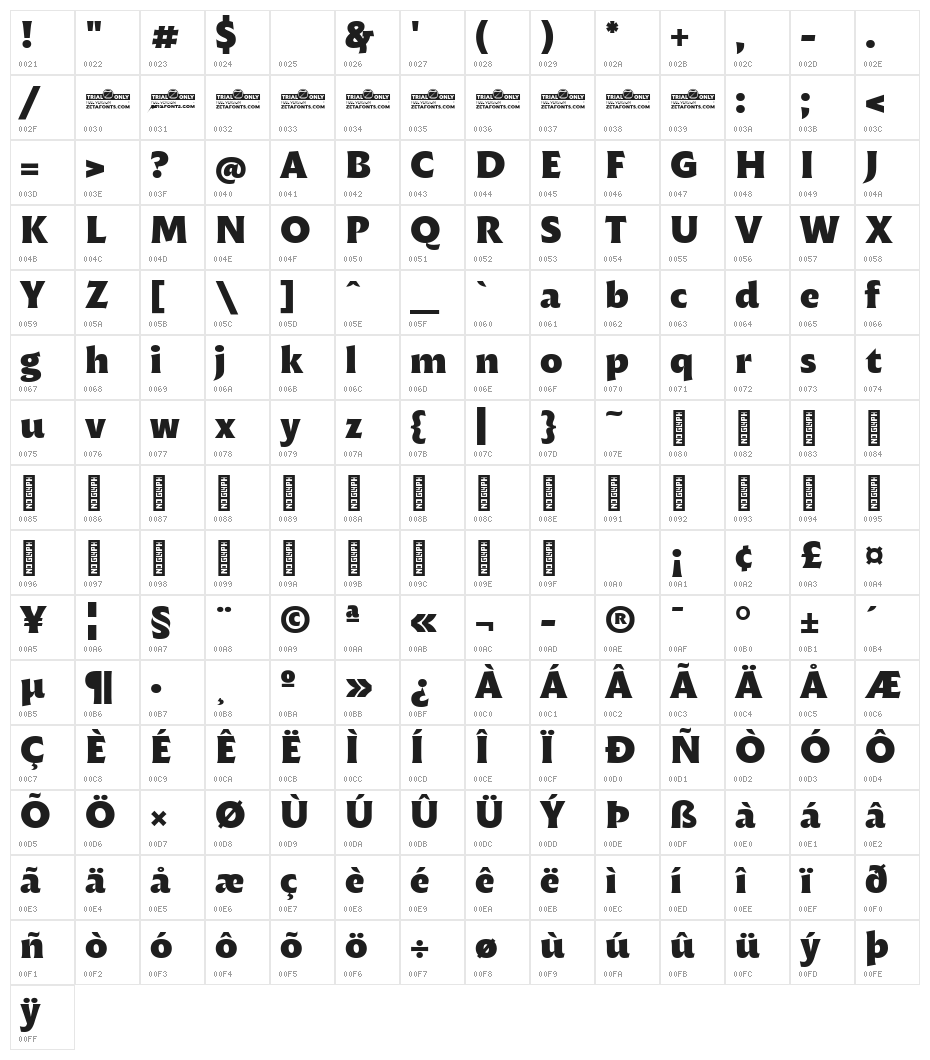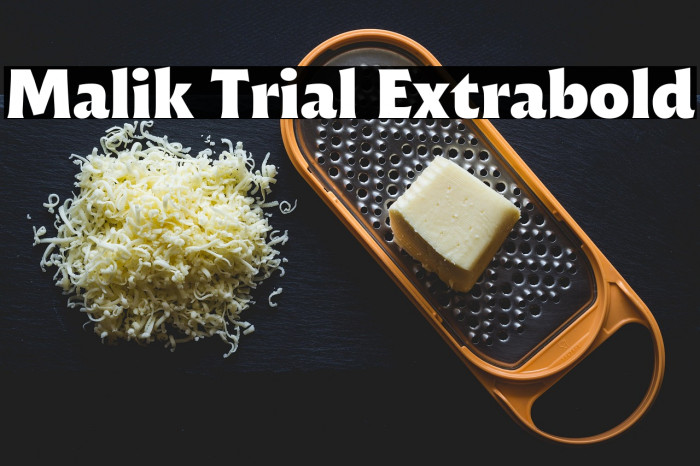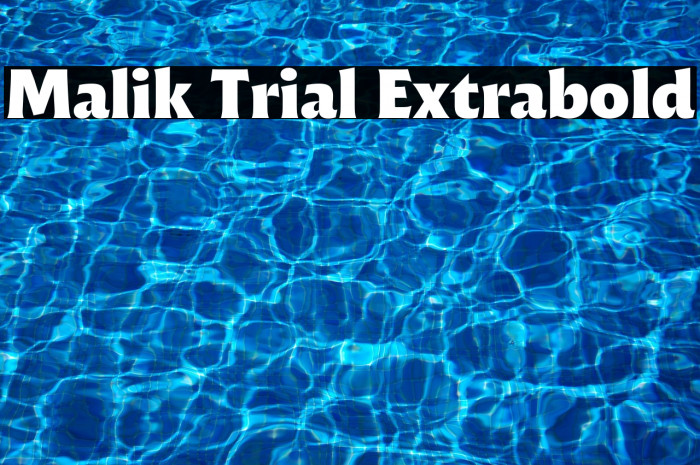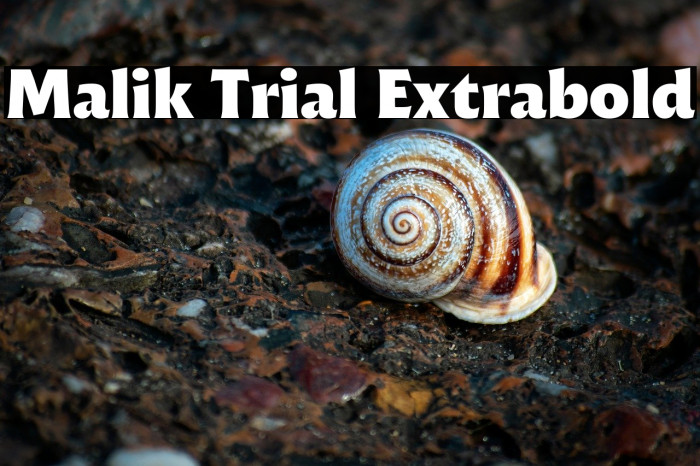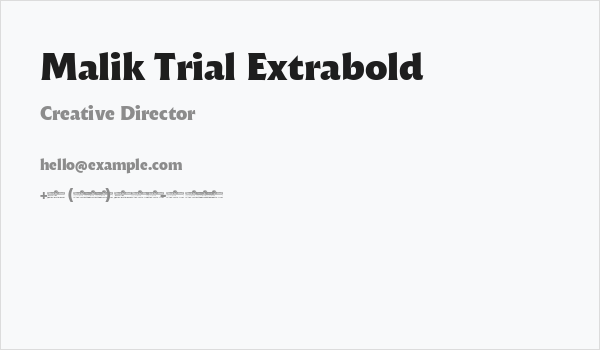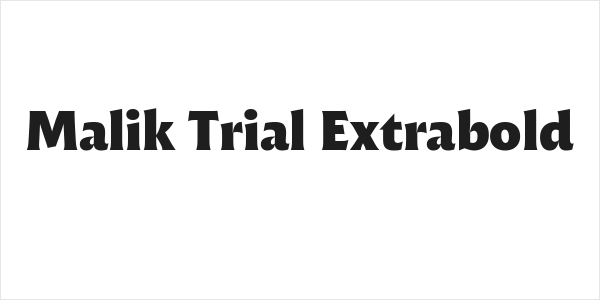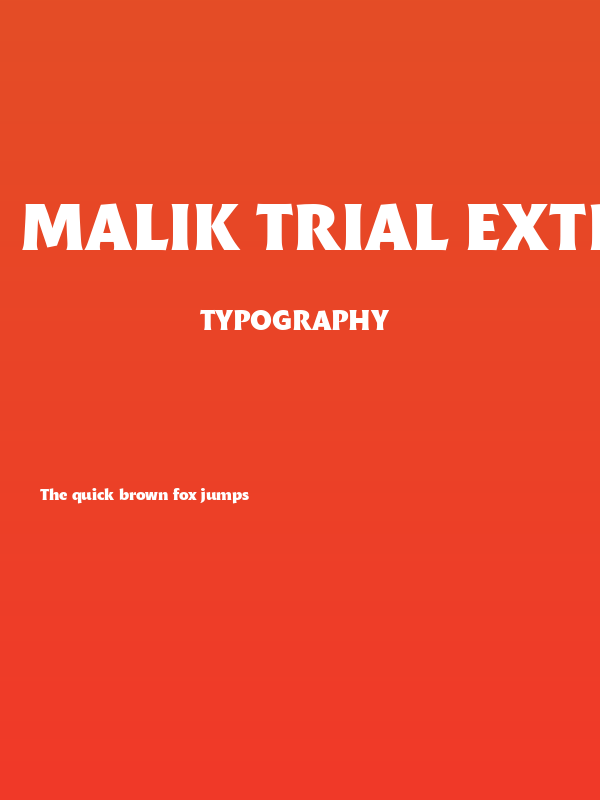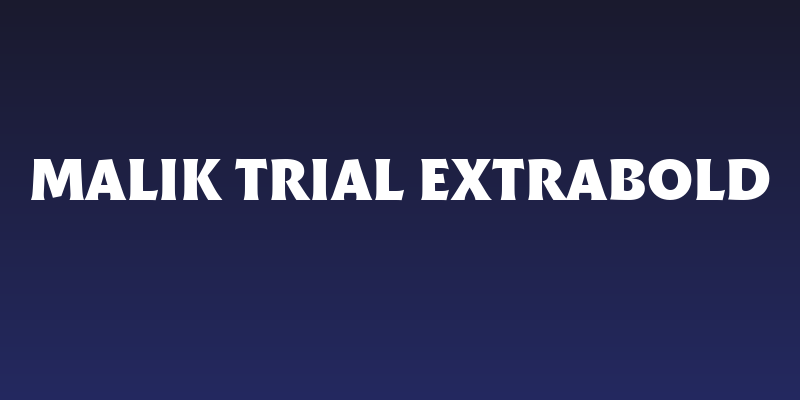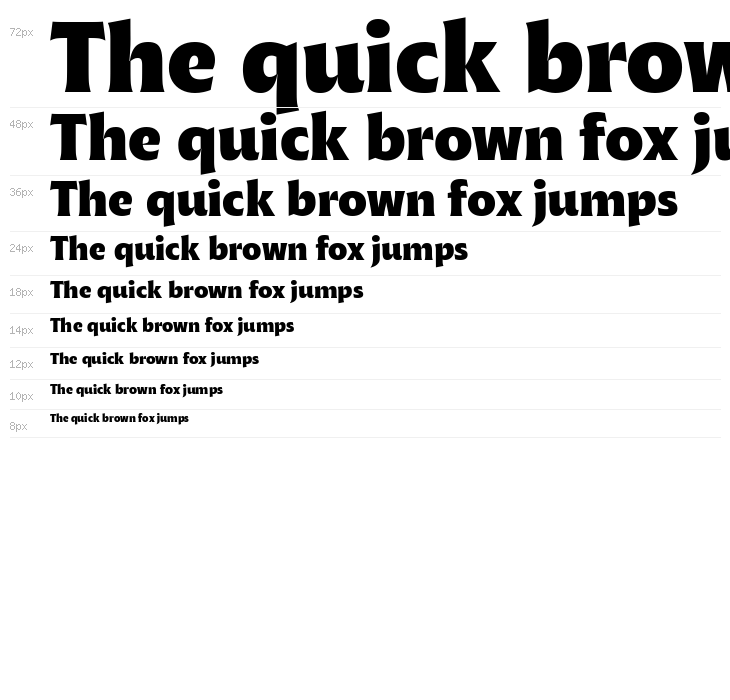
Malik Trial Extrabold Font
Malik Trial Extrabold Description
This font exhibits a bold and striking appearance, characterized by thick, heavy strokes that convey a sense of strength and impact. The uppercase letters are particularly robust, with a slight curvature that adds a touch of dynamism to the overall design. The lowercase letters maintain this boldness, ensuring consistency across different text cases. The font's style is reminiscent of classic serif fonts but with a modern twist, making it suitable for both traditional and contemporary applications. The special characters are equally bold, ensuring they stand out in any text composition.